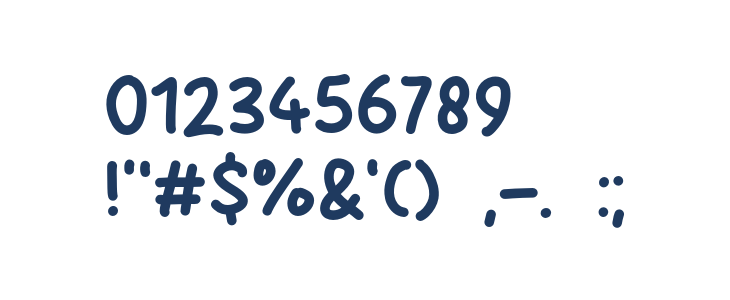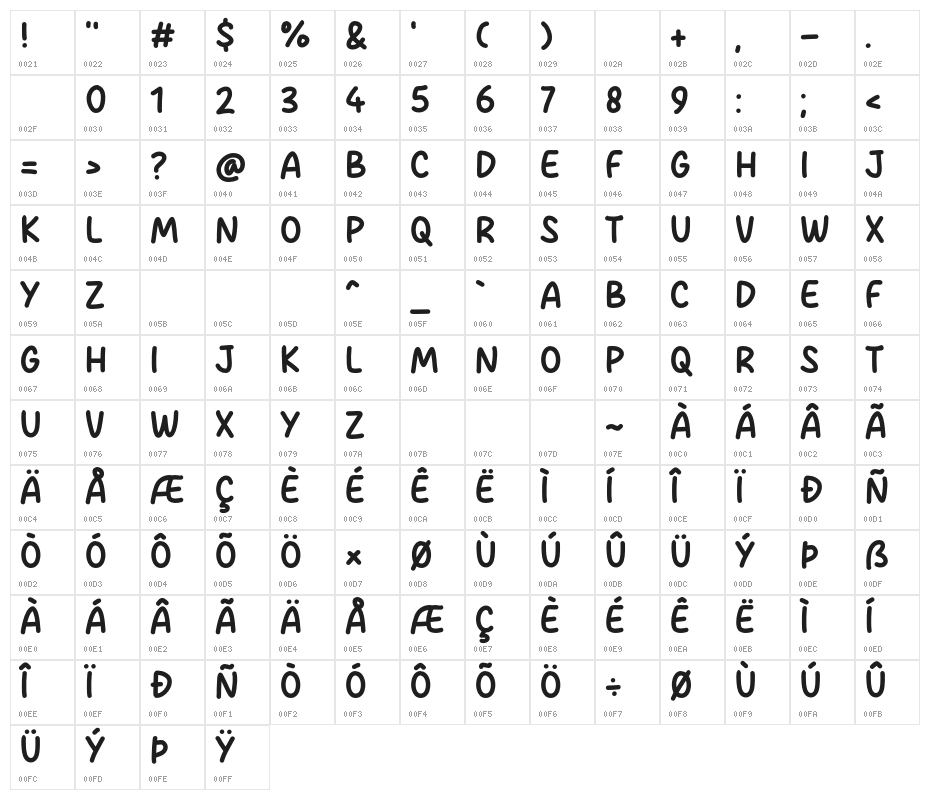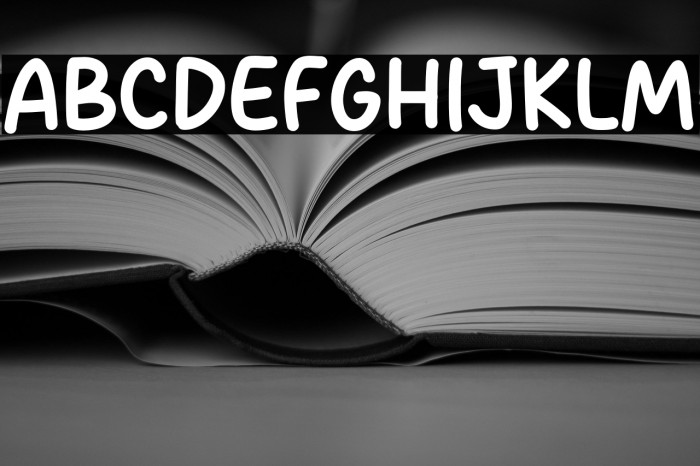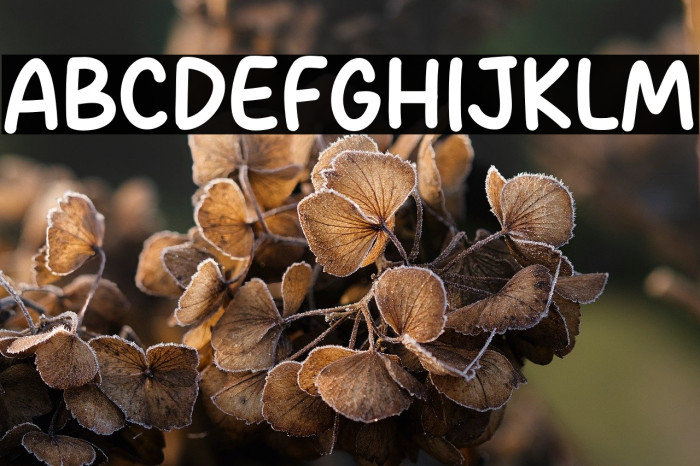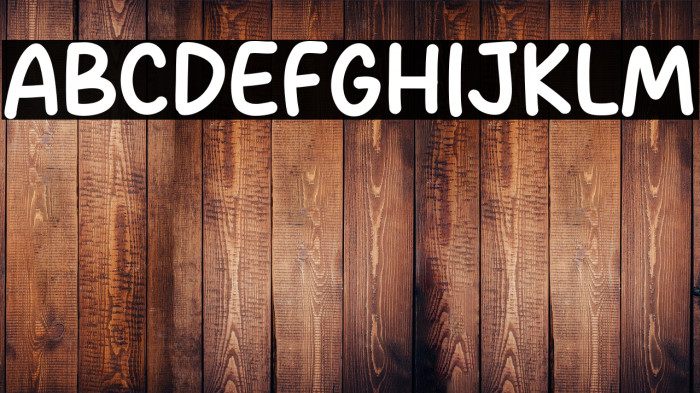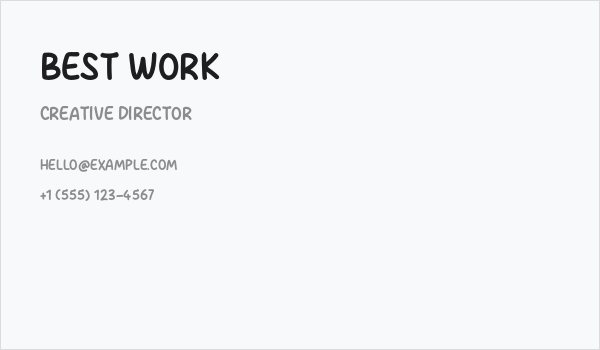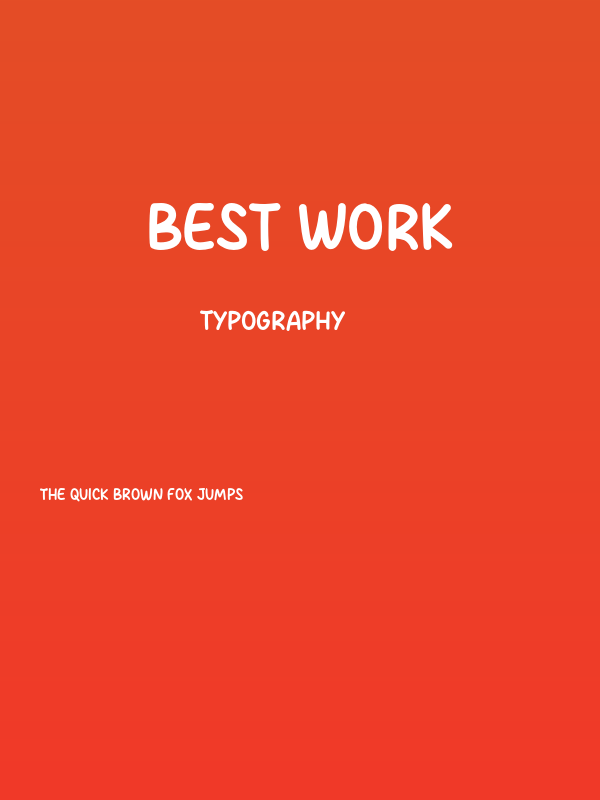
Best Work Font
Best Work Description
This font features a playful and informal handwritten style, characterized by its rounded and slightly irregular letterforms. The strokes are bold and consistent, giving it a friendly and approachable appearance. The characters are well-spaced, ensuring readability while maintaining a casual aesthetic. This font includes a full set of uppercase and lowercase letters, numerals, and a variety of special characters, making it versatile for various design needs.
| Proposed Projects | Ideal for children's books, greeting cards, playful branding, and casual invitations. |